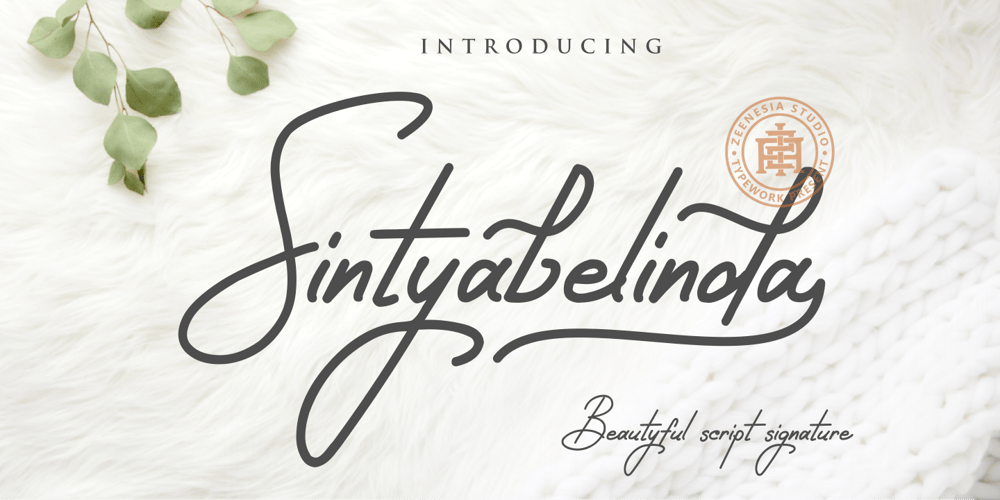
Sintyabelinda Font Family was designed by Zeenesia Studio and published by Zeenesia Studio. Sintyabelinda contains 1 styles and family package options. Sintyabelinda – Sintysbelinda is Signature Font, suitable for any projects such as logos, branding projects, homeware designs, product packaging, mugs, quotes, posters, shopping bags, t-shirts, book covers, name card, invitation cards, greeting cards, label, photography, watermark, special events, and more. stylistic set alternate and swash make this font so classy, this is a font worthy of your collection. Thank you.